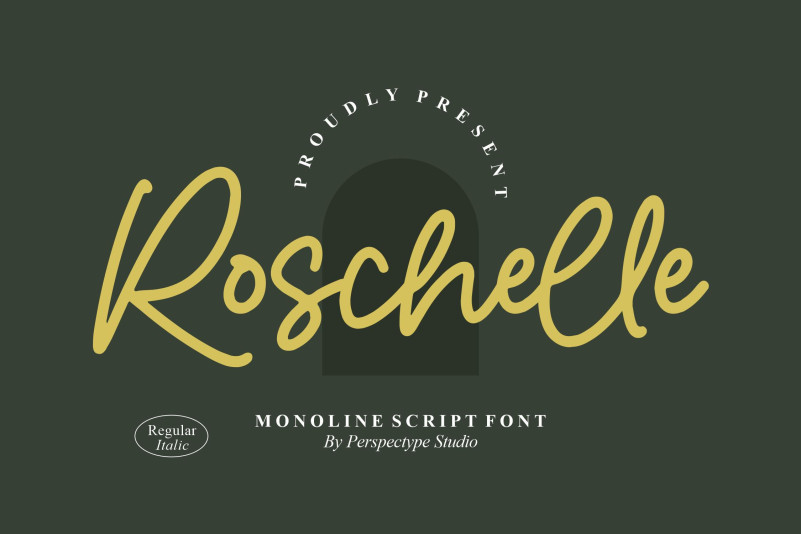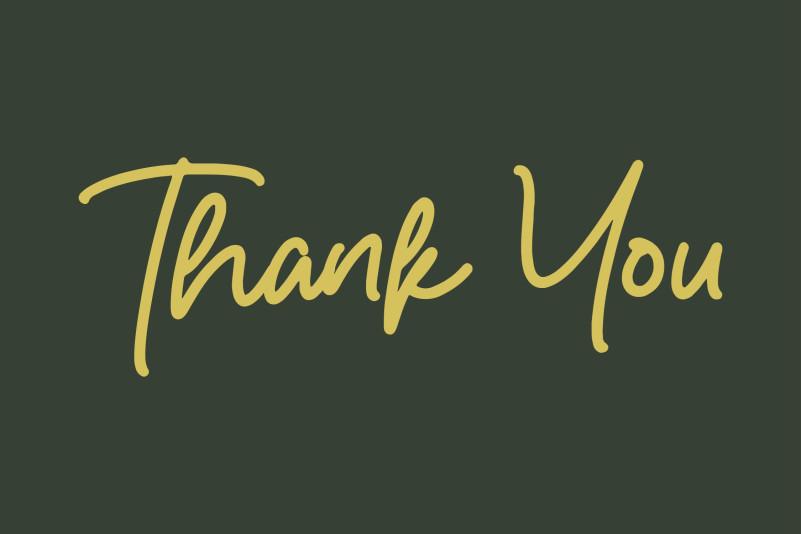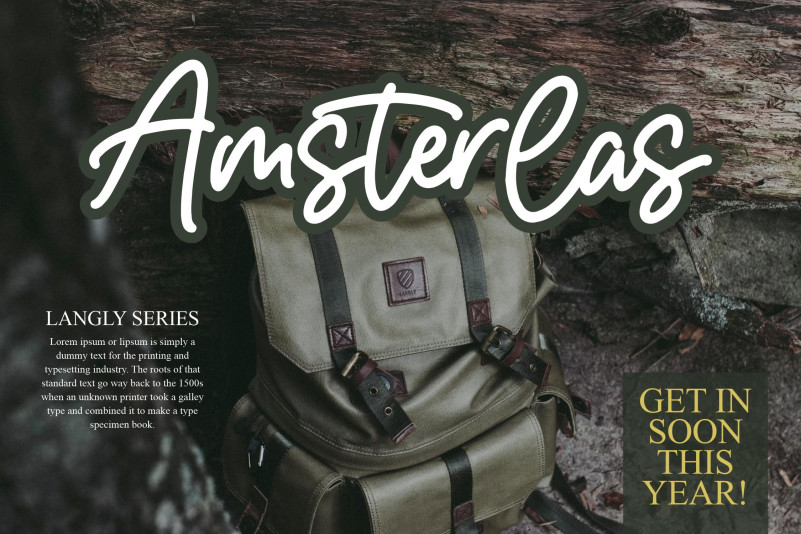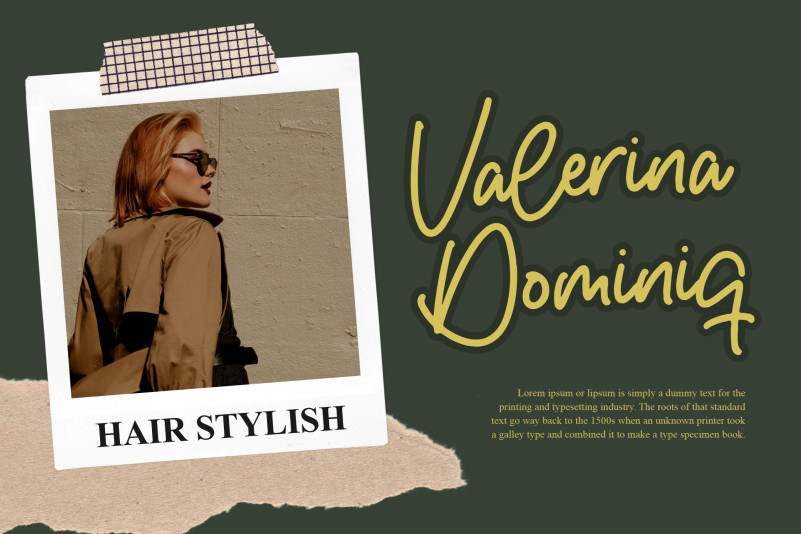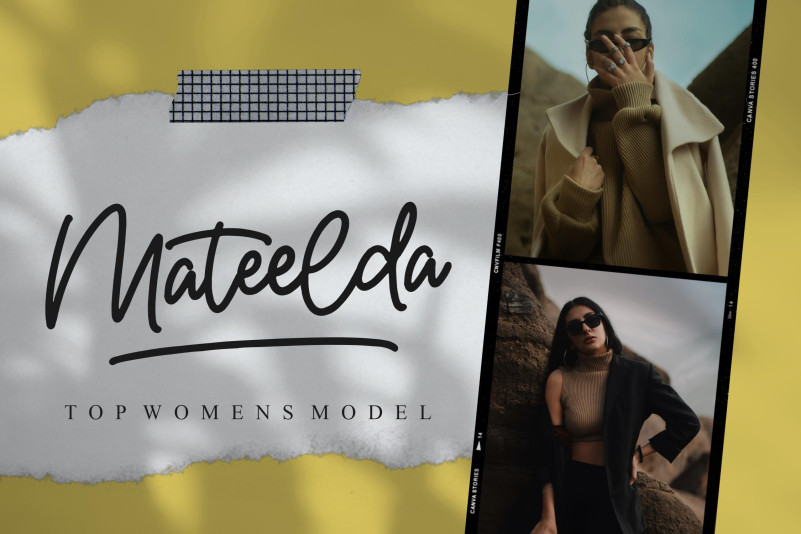
Roschelle Font
Roschelle Script Font is a Monoline Script Font , suitable for any projects such as: logos, branding projects, homeware designs, product packaging, mugs, quotes, posters, shopping bags, t-shirts, book covers, name card, invitation cards, greeting cards, label, photography, watermark, special events, and all your other lovely projects that need a beautiful script taste.